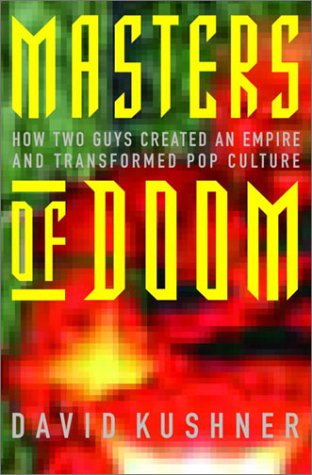
• this is a recreation of a font that is used on the book cover of "masters of doom" (see comments) which tells the story of video game producers id software and their head john carmack. hence the name. I also want to thank all of those who supported me lately while I had some problems with my motivation. Your words helped me a lot.
It could do with spaces between the letters, but otherwise it's brilliant!